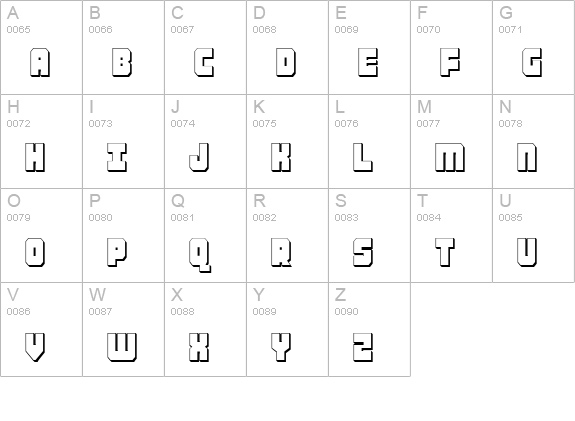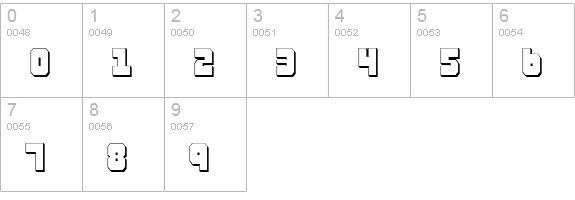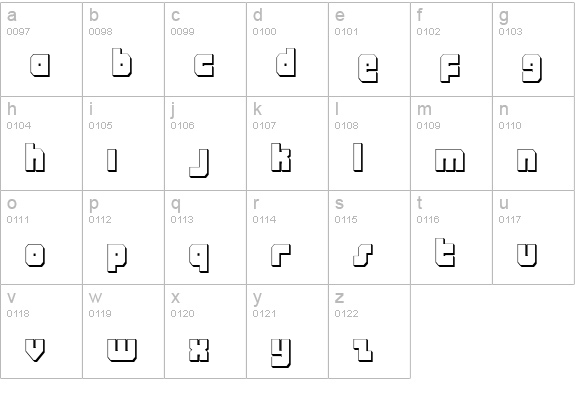
Alpha Taurus 3D Font Details
The Alpha Taurus 3D font is a bold and dynamic typeface that exudes strength and modernity. Its three-dimensional design gives it a unique and eye-catching appearance, making it perfect for projects that require a strong visual impact. With its sleek lines and geometric shapes, Alpha Taurus 3D font is sure to make a statement in any design project. Best of all, this striking font is available for free download at FontsMarket.com. Whether you're working on a branding project, poster design, or website, Alpha Taurus 3D font will add a touch of sophistication and style to your work. Don't miss out on this opportunity to elevate your design projects with the Alpha Taurus 3D font - download it today and let your creativity shine!